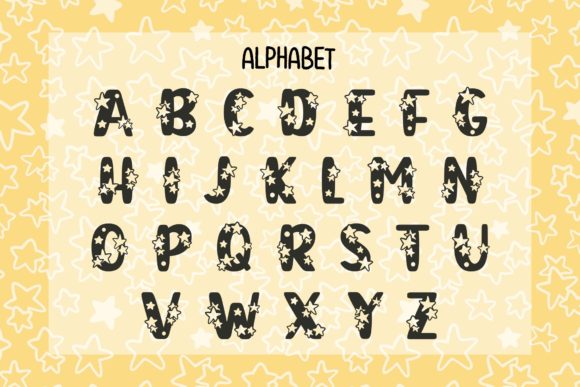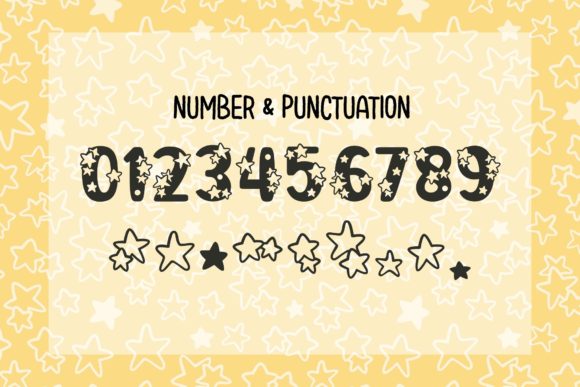
Introduction to Little Stars Font
Little Stars is a lovely decorative font.
This font is the perfect fit for all of your logos, branding, social media, crafty DIY projects, and much more .
Key Features of Little Stars Font